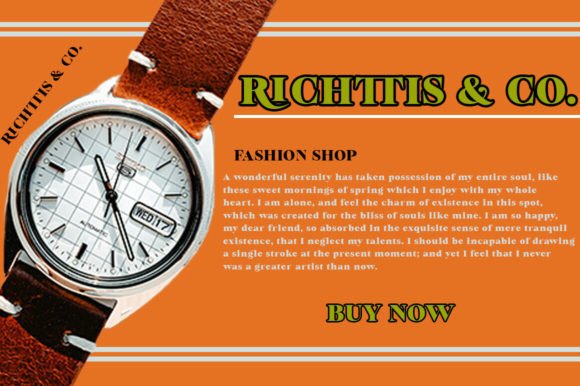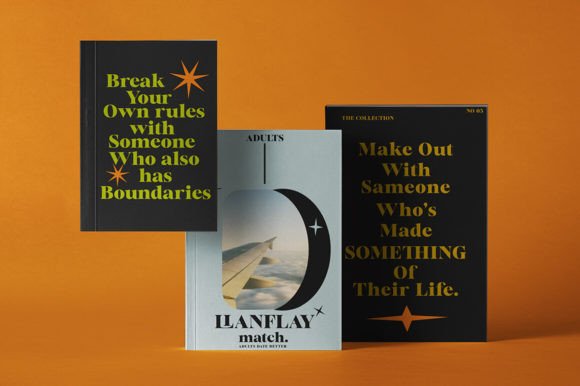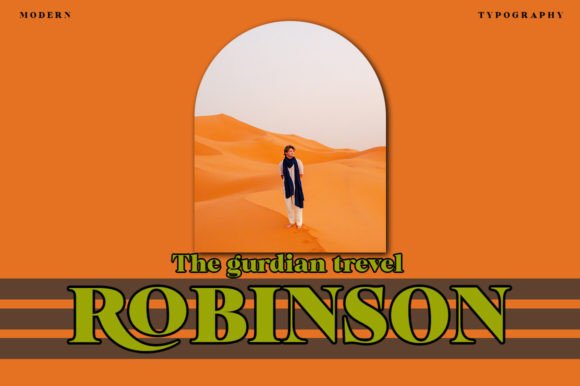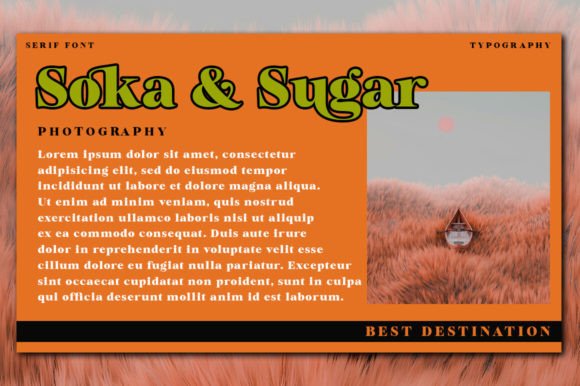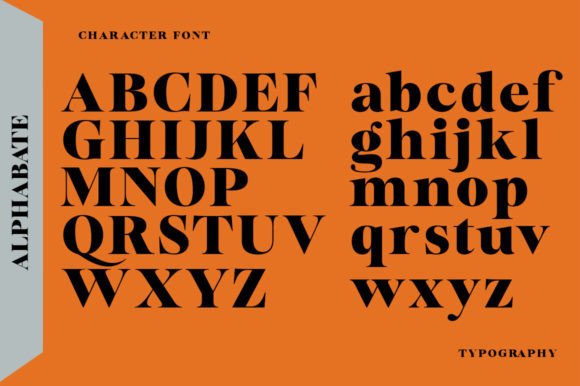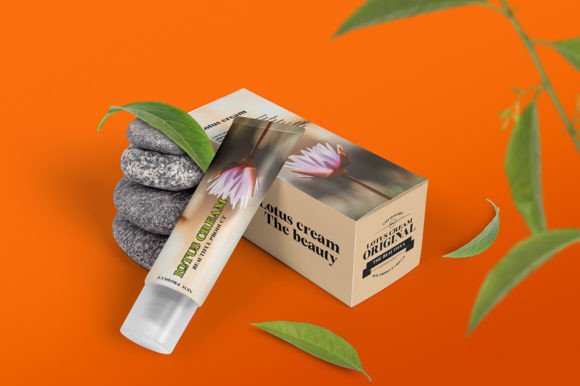
Bailsun Font: Elevate Your Designs with a Touch of Elegance
In the world of typography, fonts play a crucial role in conveying the tone and personality of a design project. For designers and crafters seeking a font that exudes sophistication and luxury, Bailsun Font is an excellent choice. This serif font masterfully blends a classic feel with a modern twist, making it perfect for a wide range of applications.
The Characteristics of Bailsun Font
Bailsun Font is distinguished by its strong serifs with slightly curved edges, which give it an elegant and refined appearance. The letters are crafted with balanced proportions and consistent stroke thickness, ensuring that the font is easy to read in both long and short texts. This makes Bailsun an ideal choice for design projects that require a formal look, such as editorials, books, or branding that aims to convey a luxurious and professional image.
Key Features of Bailsun Font
- Serif Design: Bailsun’s serif design adds a touch of sophistication to any project, making it perfect for designs that require a formal and elegant look.
- Balanced Proportions: The font’s balanced proportions ensure that the letters are harmonious and easy to read, even in long texts.
- Consistent Stroke Thickness: The consistent stroke thickness adds to the font’s elegance and makes it suitable for a wide range of design applications.
- Classic yet Modern: Bailsun’s unique blend of classic and modern elements makes it a versatile font that can be used in various design contexts.
Uses of Bailsun Font
Bailsun Font is a versatile typeface that can be used in a variety of design projects, including:
- Editorials and Magazines: Bailsun’s elegant design makes it perfect for editorials and magazines that require a sophisticated and refined look.
- Book Publishing: The font’s readability and classic feel make it an excellent choice for book publishing, particularly for fiction and non-fiction books that require a formal tone.
- Branding and Logo Design: Bailsun’s luxurious and professional appearance makes it suitable for branding and logo design projects that aim to convey a high-end image.
- Packaging Design: The font’s elegant design makes it perfect for packaging design projects that require a sophisticated and refined look.
Why Choose Bailsun Font?
With so many fonts available, why choose Bailsun Font for your design projects? Here are a few compelling reasons:
- Unique Design: Bailsun’s unique blend of classic and modern elements makes it a standout font that can help your designs stand out.
- Readability: The font’s balanced proportions and consistent stroke thickness ensure that it is easy to read, even in long texts.
- Versatility: Bailsun’s elegant design makes it suitable for a wide range of design applications, from editorials and books to branding and packaging design.
- Professional Image: The font’s luxurious and professional appearance makes it perfect for designs that aim to convey a high-end image.
In conclusion, Bailsun Font is an excellent choice for designers and crafters seeking a font that exudes elegance and sophistication. Its unique blend of classic and modern elements, combined with its balanced proportions and consistent stroke thickness, make it perfect for a wide range of design applications. Whether you’re working on an editorial, book, branding project, or packaging design, Bailsun Font is sure to elevate your designs and convey a professional and luxurious image.